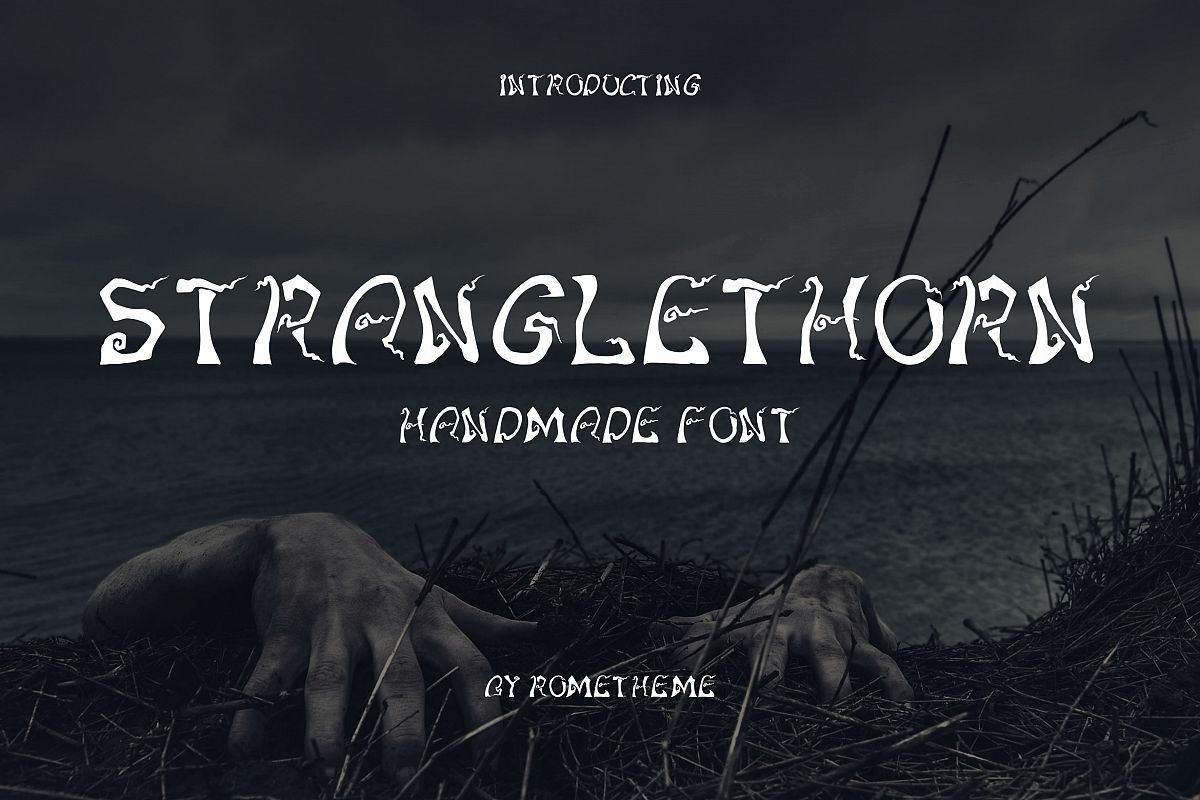
Stranglethorn
Stranglethorn is a mystery, horror and Halloween font, this font looks elegant, classy, readable, stylish, catchy and easy to use.
Stranglethorn is the best choice for your professional design projects, including signature, watermark on photography, quotes, wedding, fashion, letter, invitation, business card, logo, branding, magazines, social media, advertisements, product designs, and much other design projects.